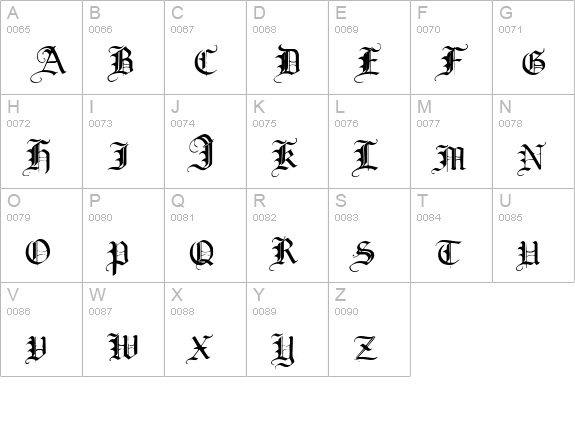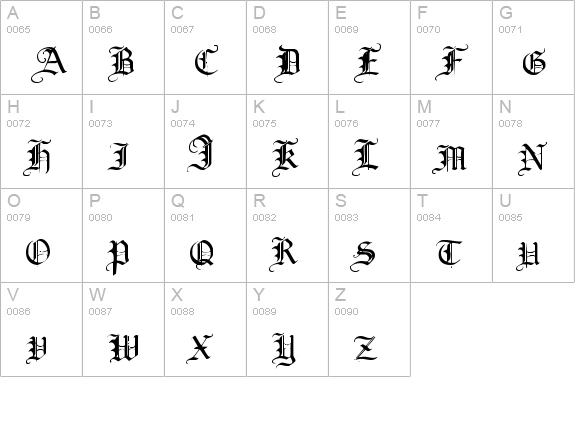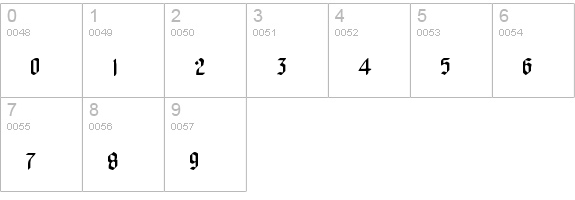
Broken Planewing Font Details
Broken Planewing font is a unique and eye-catching typeface that exudes a sense of edgy sophistication. With its broken and jagged letterforms, this font captures a sense of rebelliousness and creativity, making it perfect for projects that require a bold statement. The irregular shapes and distressed details give Broken Planewing a raw and gritty aesthetic that sets it apart from traditional fonts. What's even better is that Broken Planewing font is available for free download at FontsMarket.com. This means you can easily incorporate this striking font into your designs without any cost. Whether you're working on posters, logos, or social media graphics, Broken Planewing font will add a touch of unconventional flair to your projects. Embrace the unconventional with Broken Planewing font and let your creativity soar.